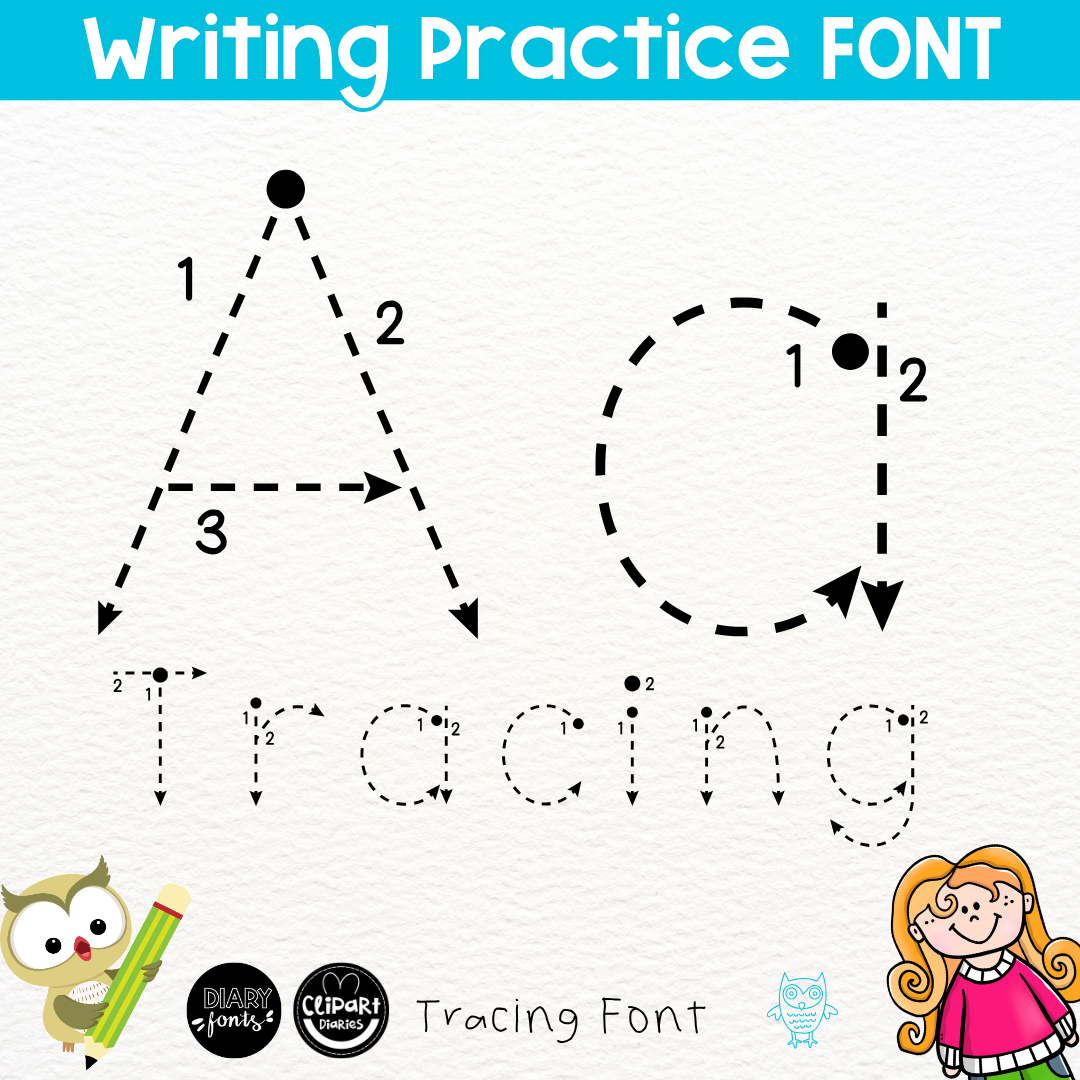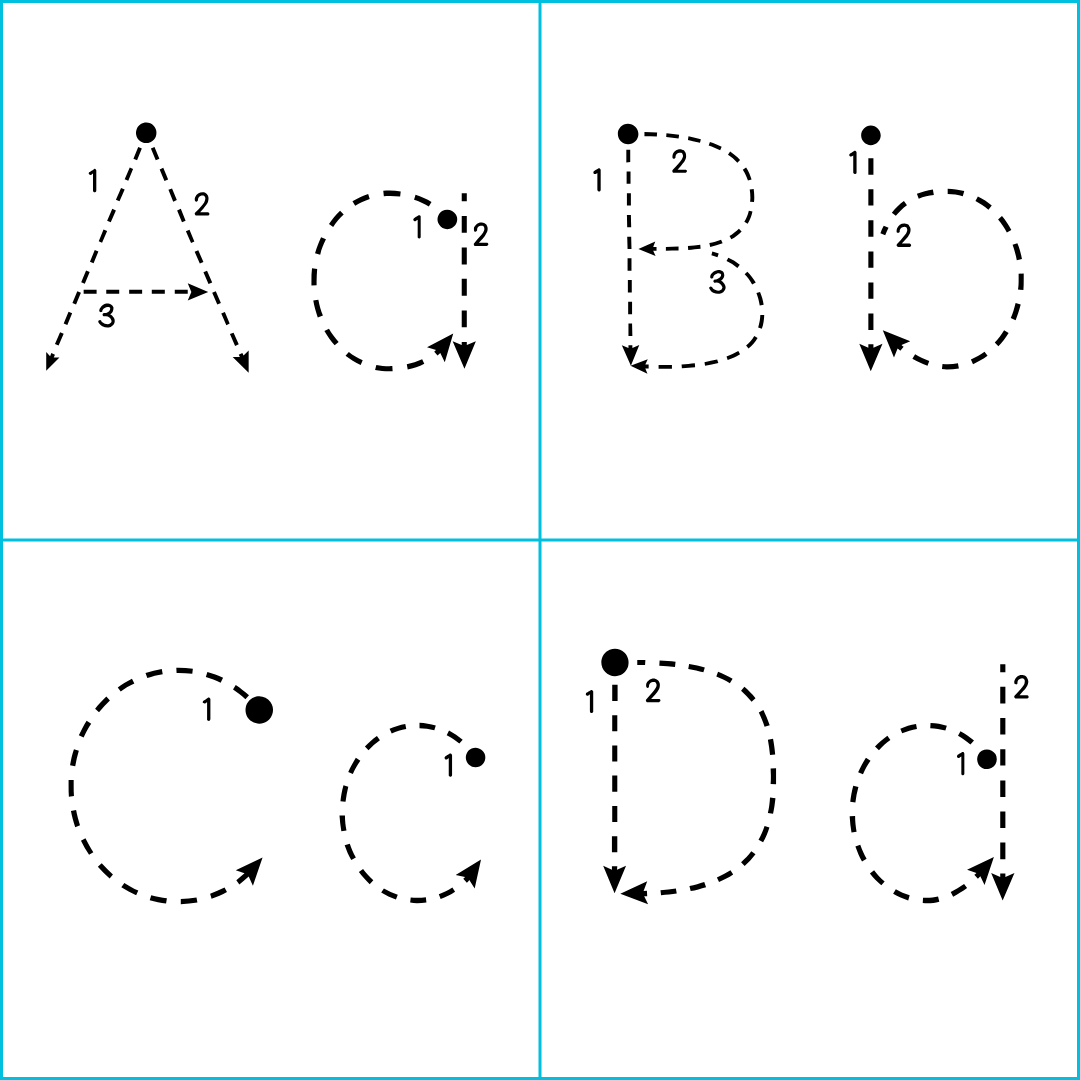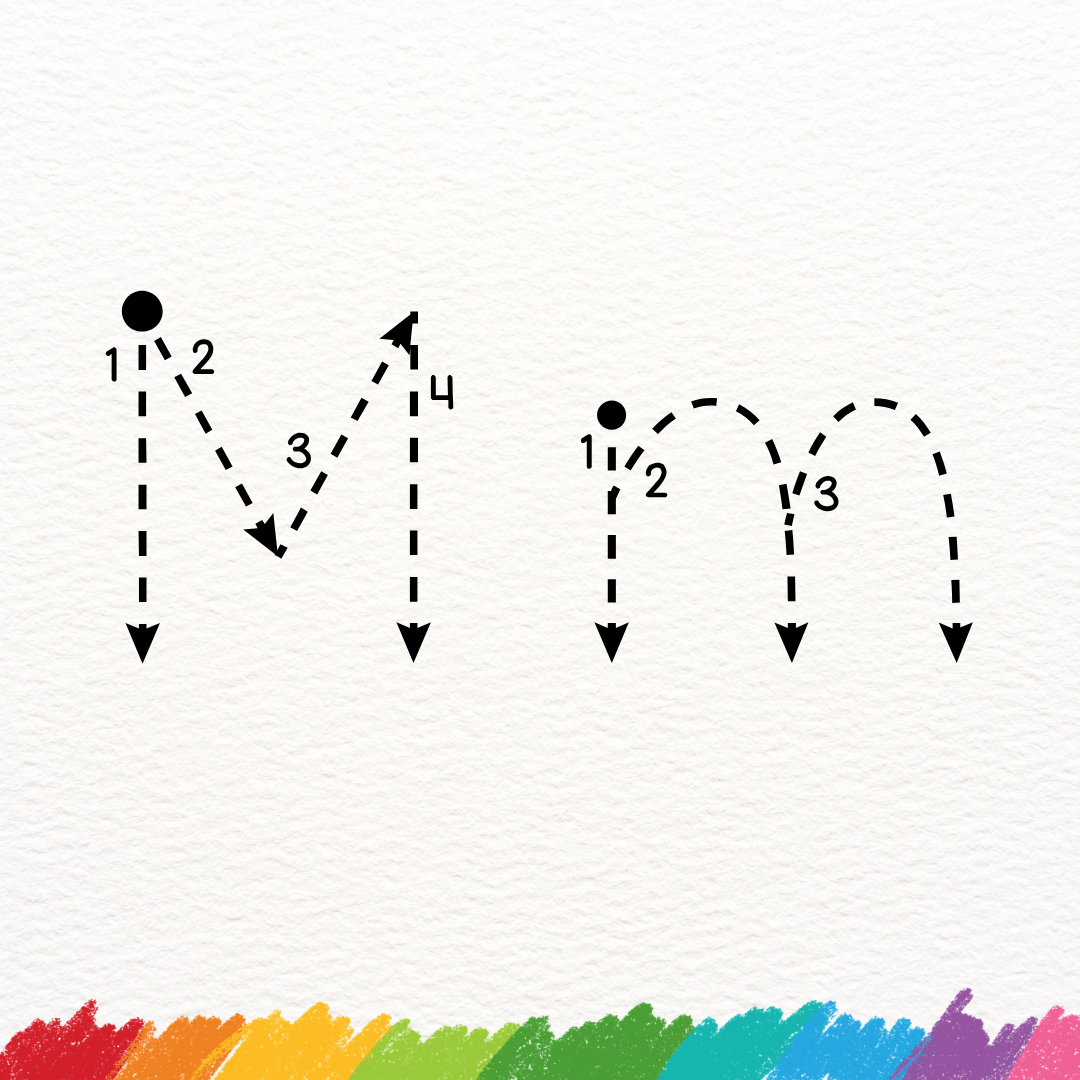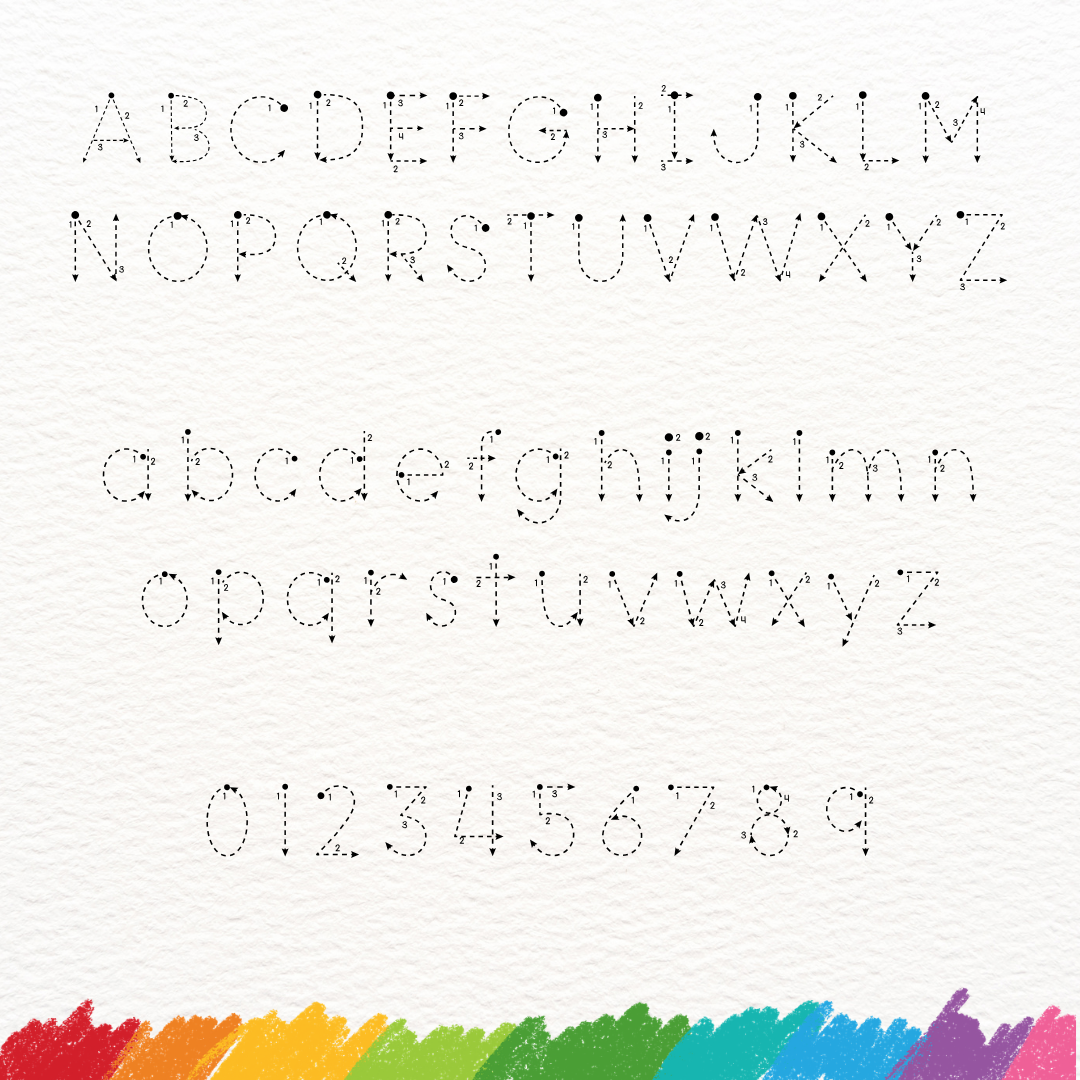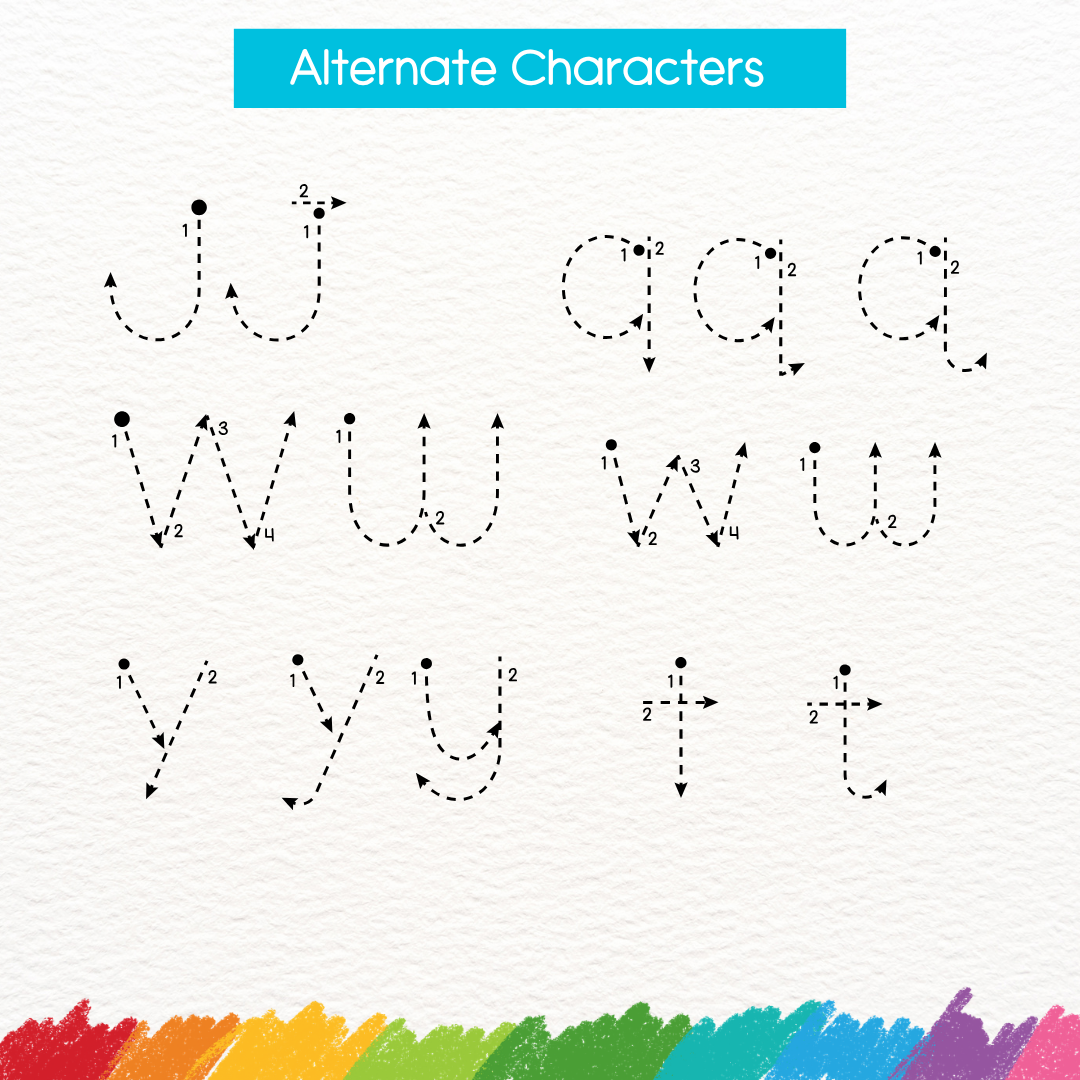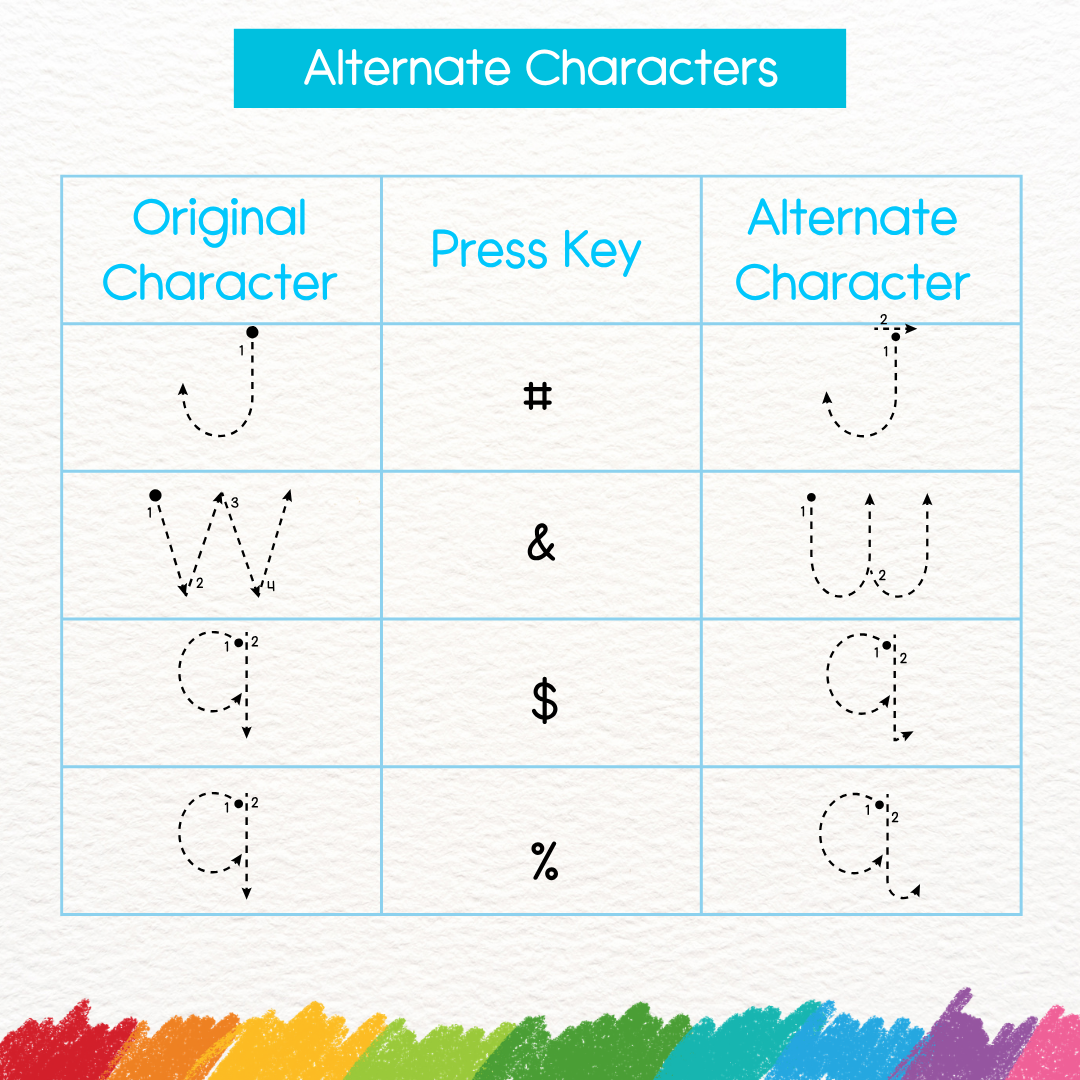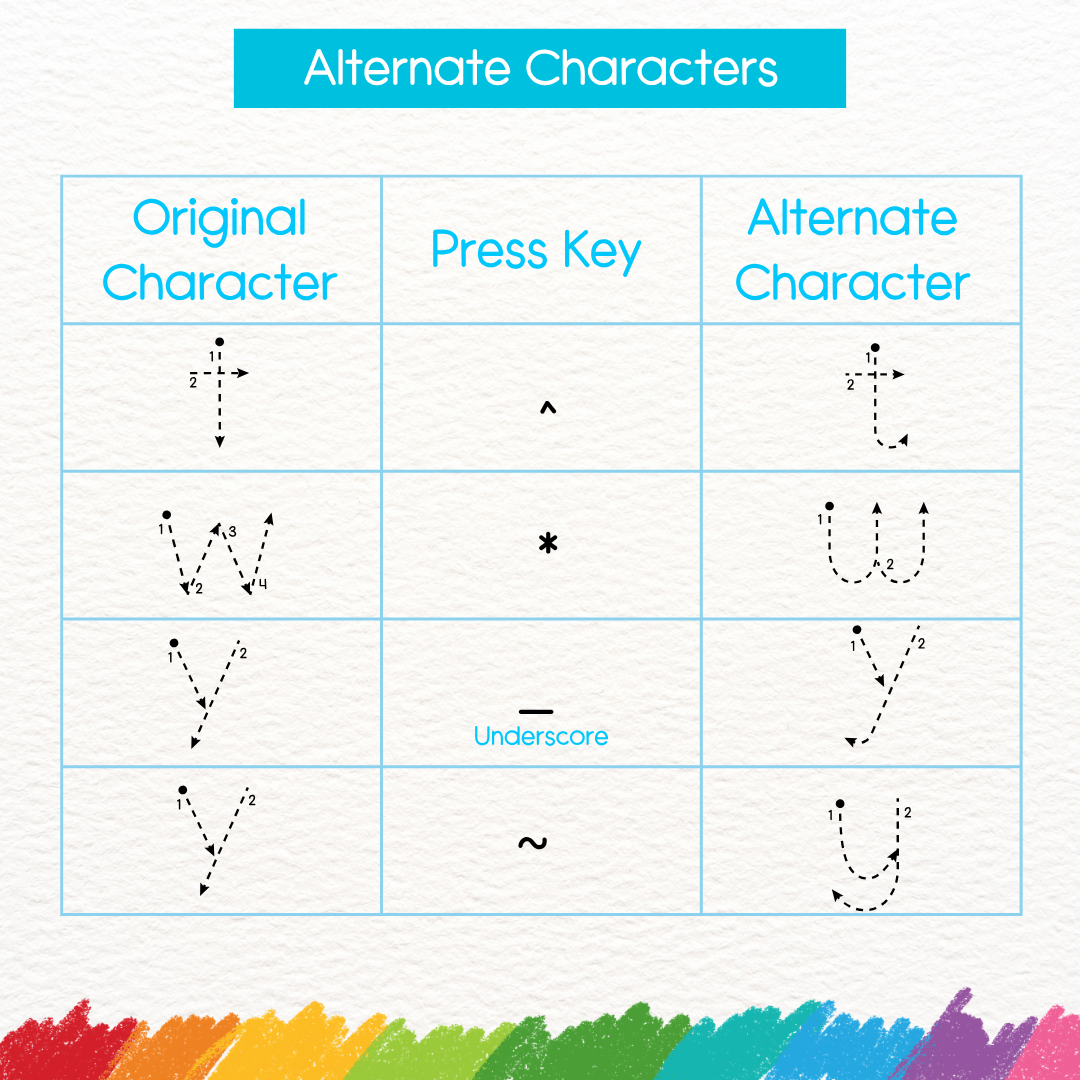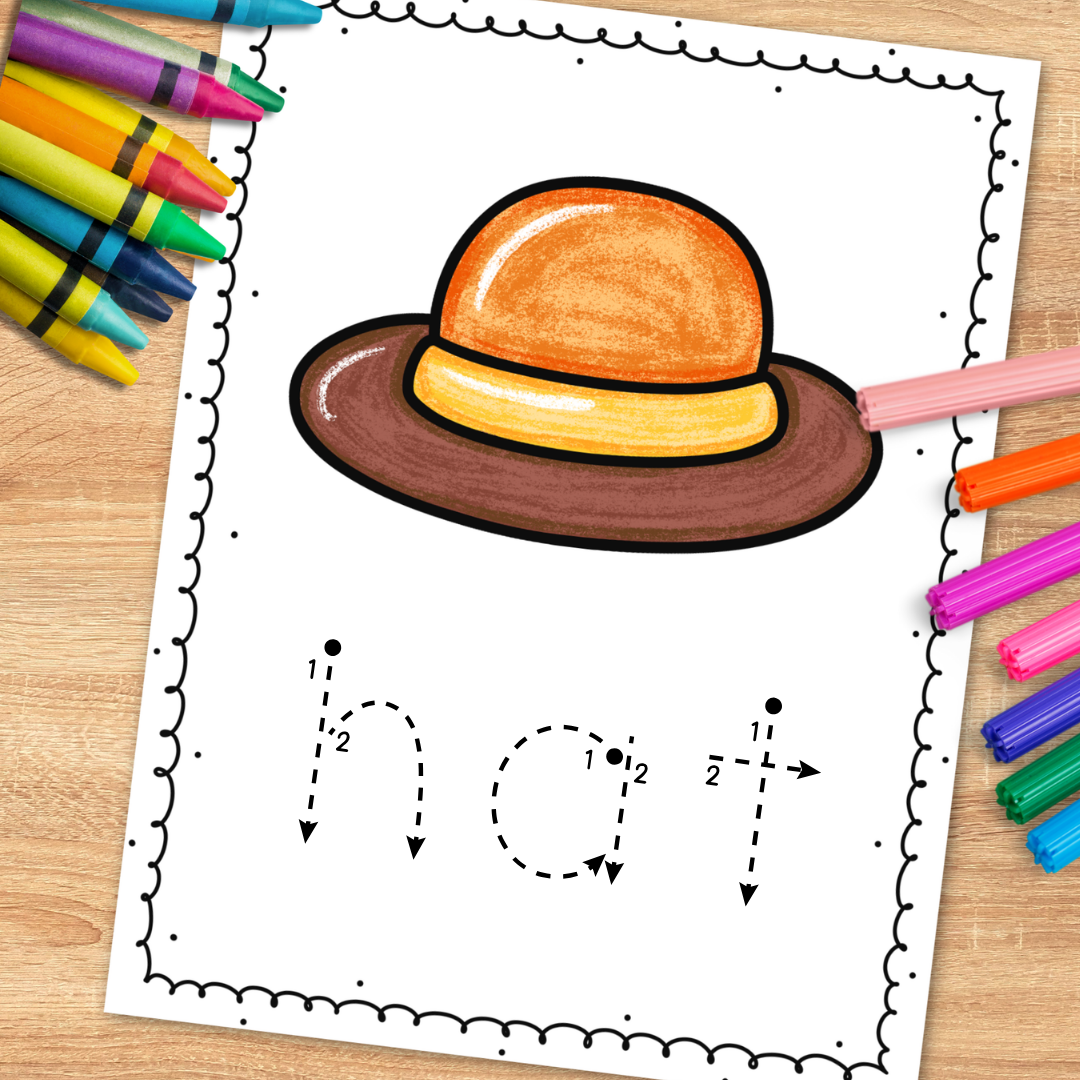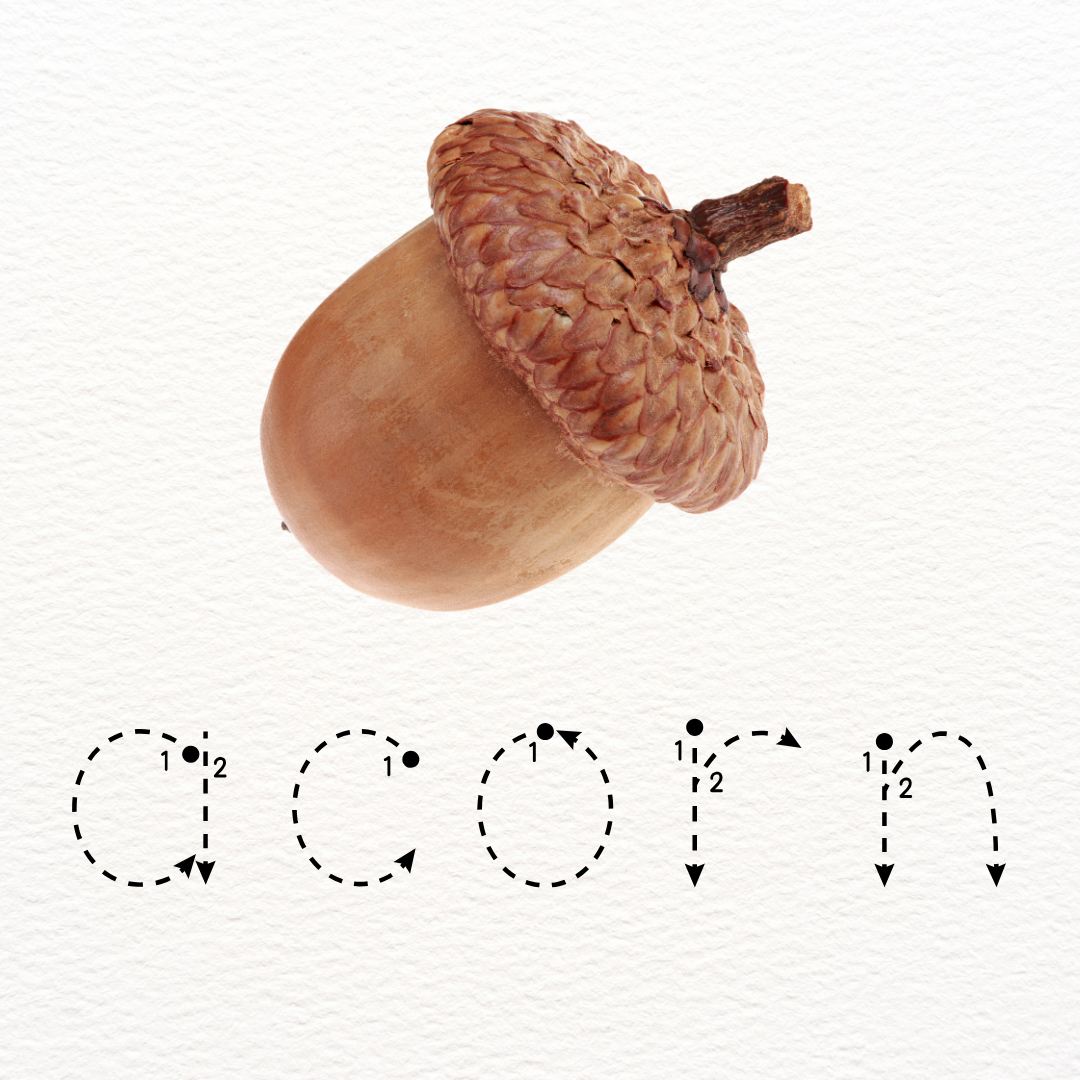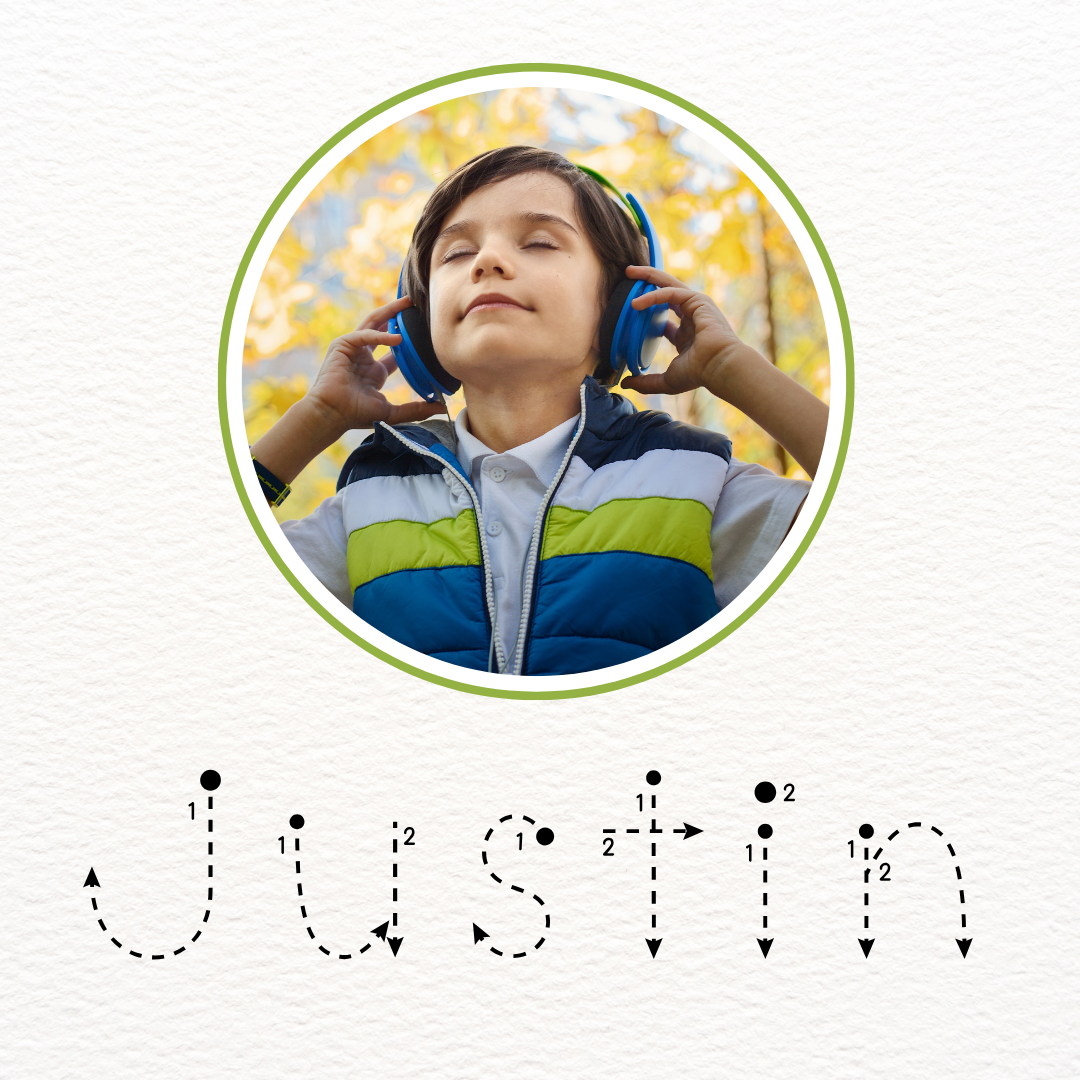
Tracing Font with Dashed Letters, Starting Dots, Directional Arrows and Number Guides for Handwriting Practice – Diary Grade Dash 3 – COMMERCIAL USE LICENSE
This font has dashed letters with starting dots, directional arrows, and number guides, which are perfect for tracing and fine motor activities. This set includes all capital letters, small letters, and numbers best for toddler tracing, name tracing, letter recognition letter tracing, and number tracing exercises worksheets.
Create fun and engaging activities for kids to trace letters with this neat handwriting font!